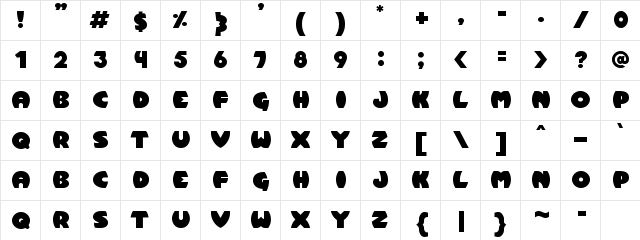
Pumpkin Regular
Design Context for Pumpkin Typeface
Pumpkin is a composed and adaptable typeface that performs quietly and consistently across a wide range of design contexts.